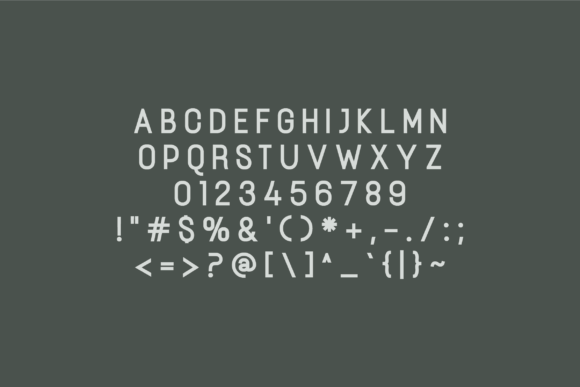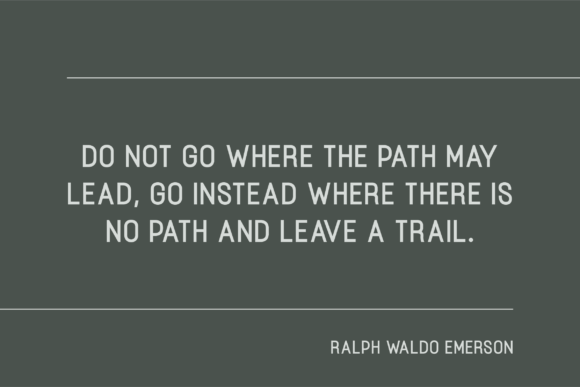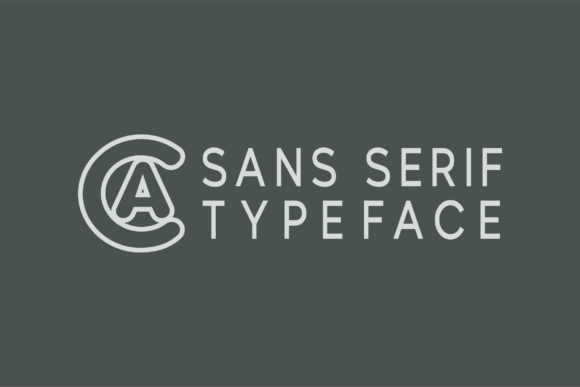
Introduction to Meowgic Font
Have you ever stared at a blank canvas, struggling to find the perfect font to bring your creative project to life? As a designer, you know that the right typeface can make all the difference in conveying your message and capturing your audience’s attention. That’s where Meowgic Font comes in – a modern, classy sans serif typeface that’s sure to elevate your designs to the next level.
As a valuable design resource, Meowgic Font offers a wide range of characters, including upper case letters, numbers 0-9, and a variety of punctuation and symbols. With its transparent background and high quality design, this font is perfect for creating eye-catching logos, wedding invitations, and advertisements that demand attention. And the best part? It’s available for free download, making it an essential addition to any designer’s toolkit.
Whether you’re working on a print project, designing a magazine, or crafting a social media campaign, Meowgic Font is the perfect choice for any creative endeavor. Its versatility and sophistication make it a valuable asset for designers of all levels, and its high quality design ensures that your work will stand out from the crowd.
Key Features of Meowgic Font
- Its distinctive, whimsical design makes it an excellent choice for projects where a touch of magic is needed.
Honest Review: Meowgic Font
As a designer, I’m always on the lookout for unique design resources that can elevate my creative projects. The Meowgic Font is one such find that caught my attention, and I’m excited to share my thoughts on it.
What works well: ✨ The Meowgic Font offers a high-quality design that’s perfect for various creative projects. The font is free to download, making it an excellent choice for designers working on a budget. It also comes with a transparent background, which is a great feature for designers who want to create visually appealing designs.
- Unique and playful design
- High-quality font
However, there are some limitations to consider: ⚠️ The Meowgic Font may not be suitable for all types of projects, particularly those requiring a more formal or traditional font style. Additionally, some users may find the font to be too playful or whimsical for their taste.
Overall, the Meowgic Font is a great design resource that’s perfect for designers looking to add a touch of personality to their creative projects. While it may not be suitable for all projects, it’s definitely worth considering for those who want to add a playful and unique element to their designs.
Common Use Cases for Meowgic Font
Meowgic Font is perfect for:
Adding a playful touch to children’s party invitations and decorations.
Creating a fun and quirky social media campaign.
Designing a unique and eye-catching logo for your business.